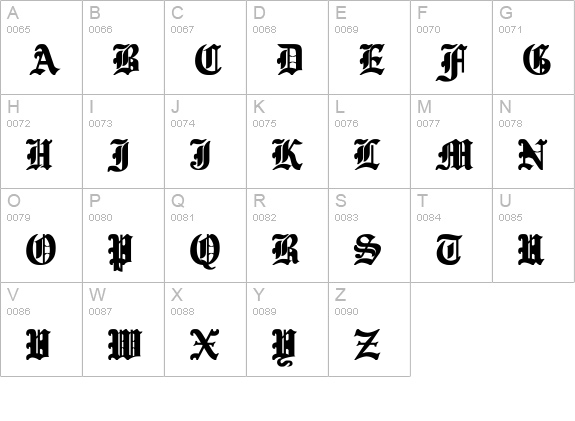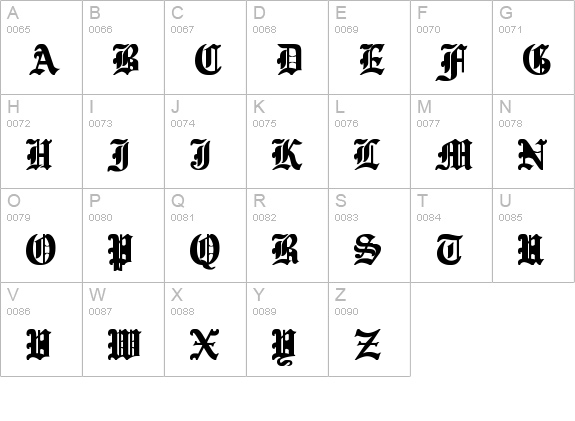
Helena Bold Font Details
Helena Bold is a strong, high-contrast variant in the Helena typeface family \xE2\x80\x94 well suited to headlines, attention-grabbing titles, and strong calls-to-action.
Introducing Helena Bold, a stunning font that exudes elegance and sophistication. This bold typeface is designed to make a statement, commanding attention with its strong and confident presence. Whether used for headings, titles, or logos, Helena Bold adds a touch of luxury and class to any design. With its clean lines and perfectly balanced curves, Helena Bold is a versatile font that can be used in a variety of creative projects. Its timeless appeal makes it suitable for both modern and traditional designs, ensuring that it remains a go-to choice for designers and creatives alike. One of the greatest perks of Helena Bold is that it is available for free download at FontsMarket.com. This means that you can easily access this exceptional font and incorporate it into your projects without any financial constraints. With just a few clicks, you can enhance your designs with the bold and beautiful Helena Bold font. Whether you're working on branding materials, advertisements, invitations, or any other creative endeavor, Helena Bold is sure to leave a lasting impression. Its striking presence and unique character make it a standout choice among other fonts. Download Helena Bold today from FontsMarket.com and elevate your designs with this remarkable typeface.